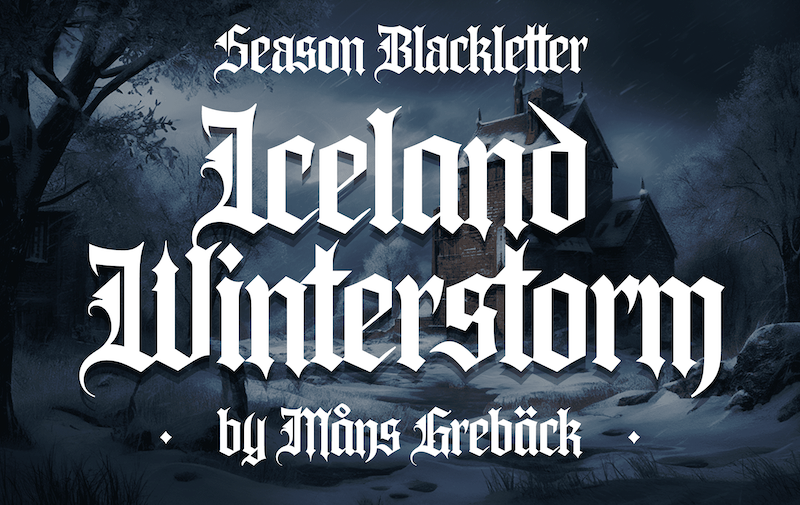
Preview and download Iceland Winterstorm Font. Created by Måns Grebäck in Gothic Medieval styles with Free for personal use license.
NOTE: This font is for PERSONAL USE ONLY! To purchase a commercial license, visit: http://www.mansgreback.com/product/iceland-winterstorm Iceland Winterstorm is a bold blackletter typeface, merging medieval gothic artistry with the raw, icy beauty of winter. Its sharp, angular forms resemble frost-covered edges, evoking the chill of snow-laden landscapes and the dramatic allure of frozen wilderness. For questions, please visit www.mn.sg/faq |